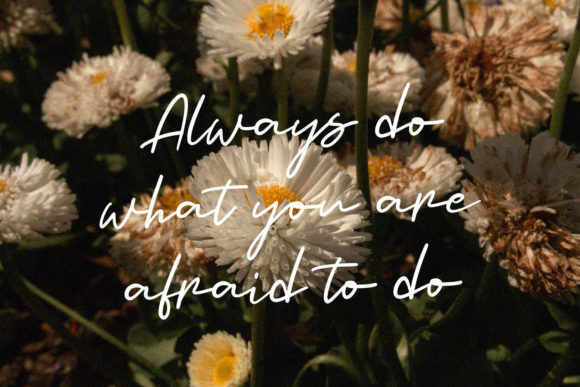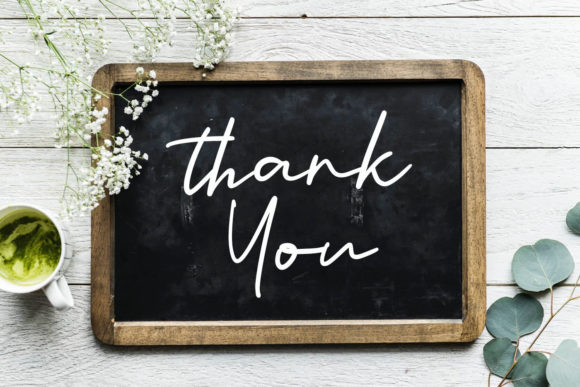
About Bathine Font
Bathine is an elegant and quirky script font. Fall in love with its cute and joyful style and use it to create gorgeous wedding invitations, beautiful stationary art, eye-catching social media posts, and much more!